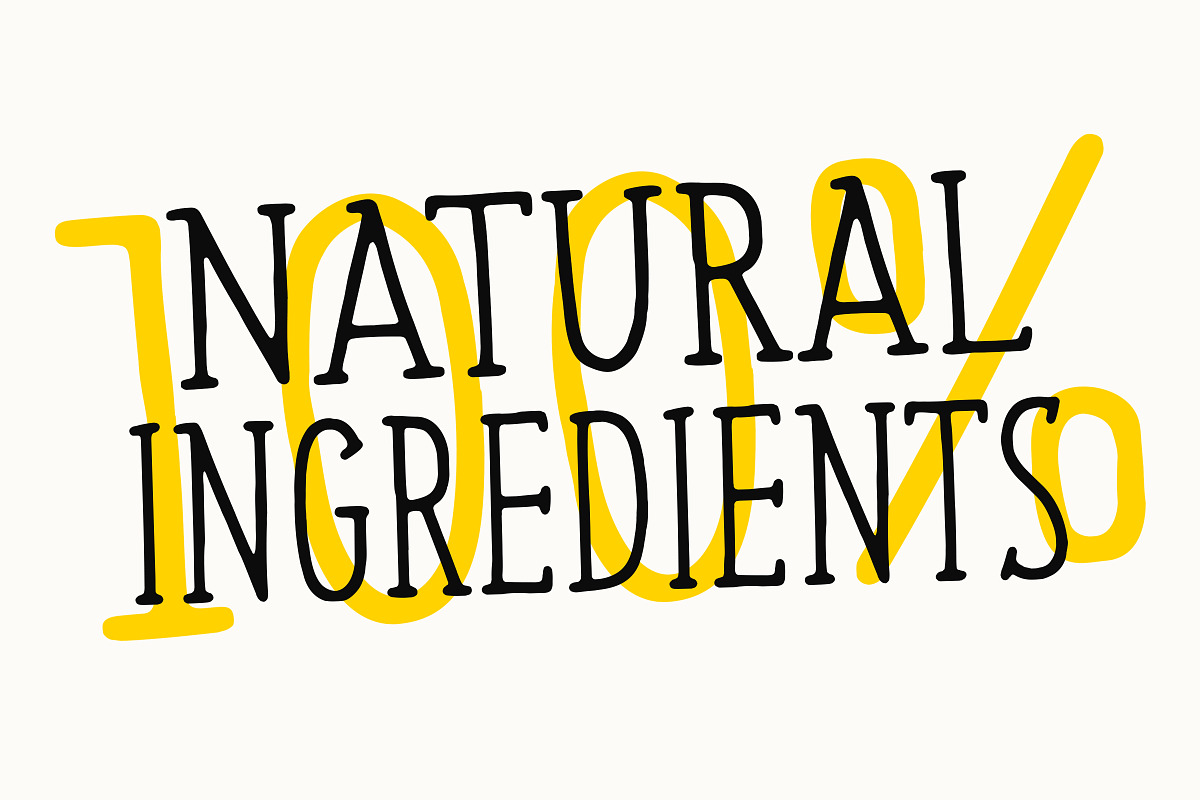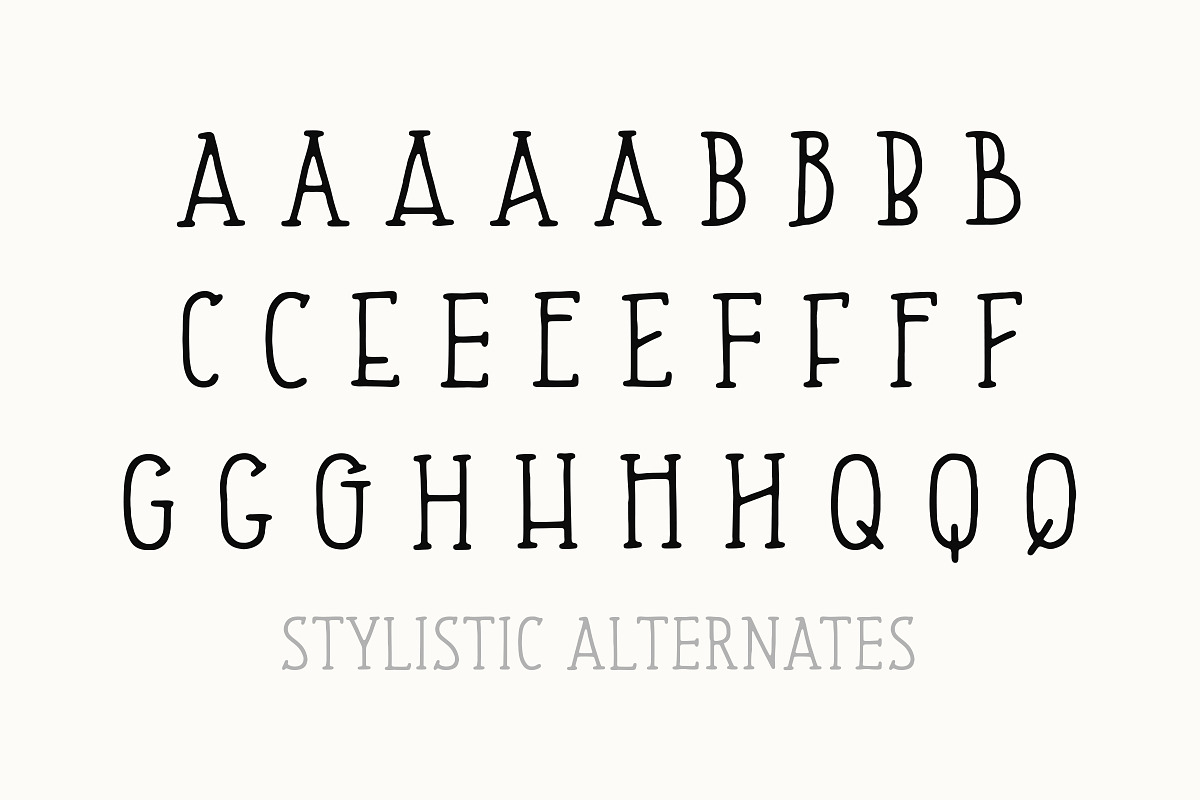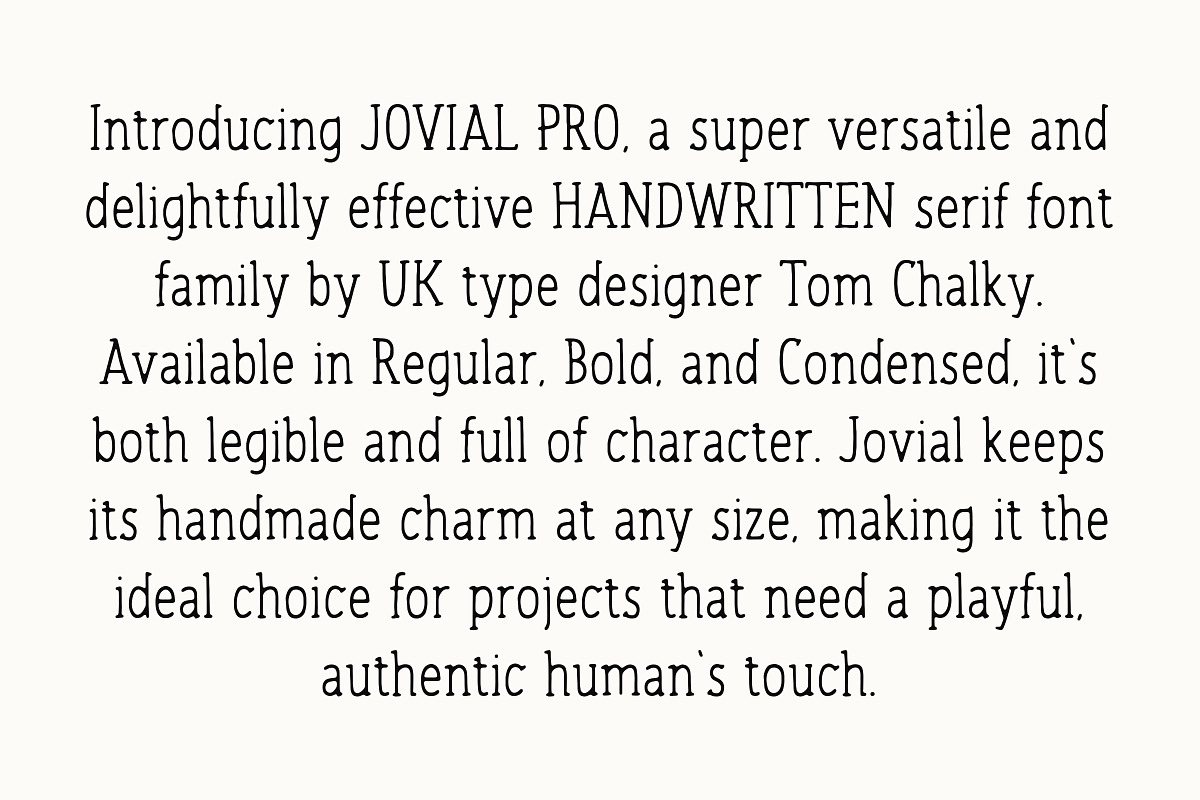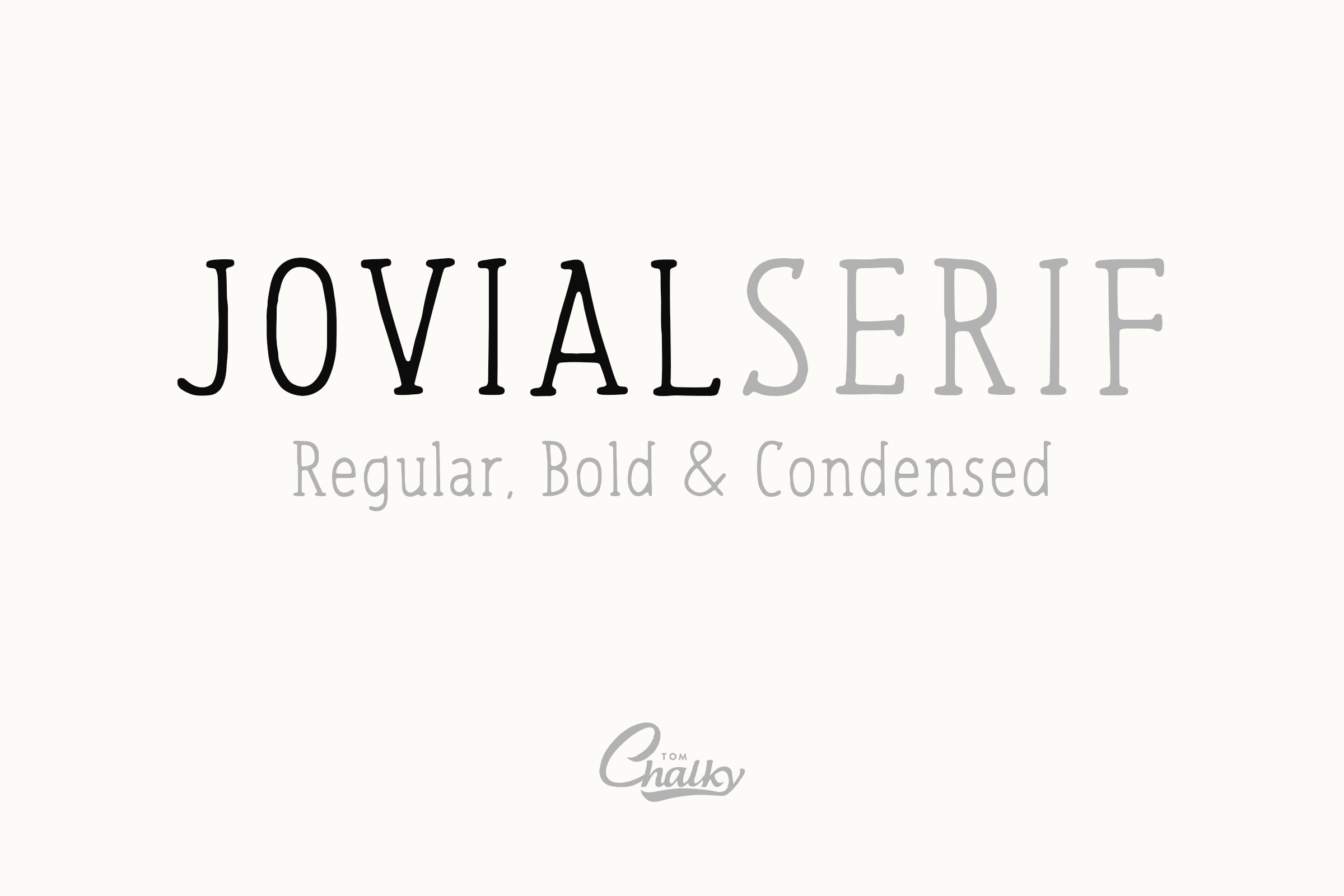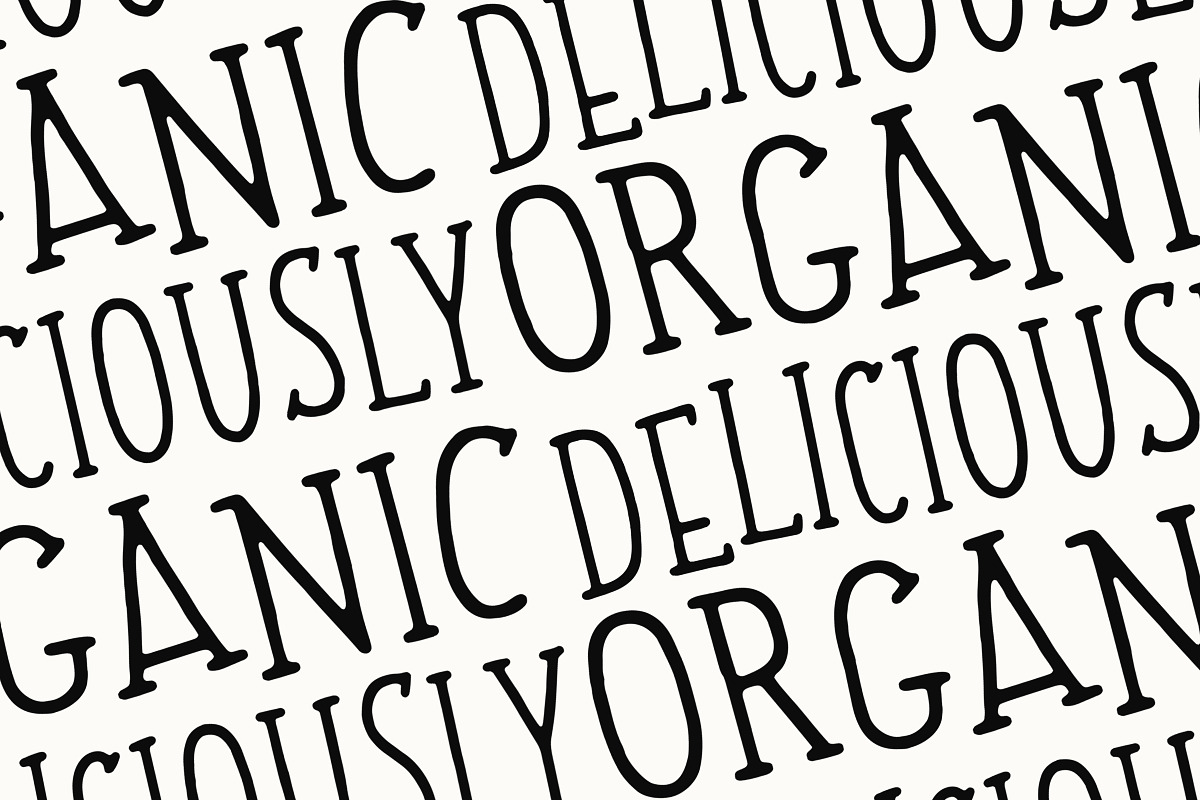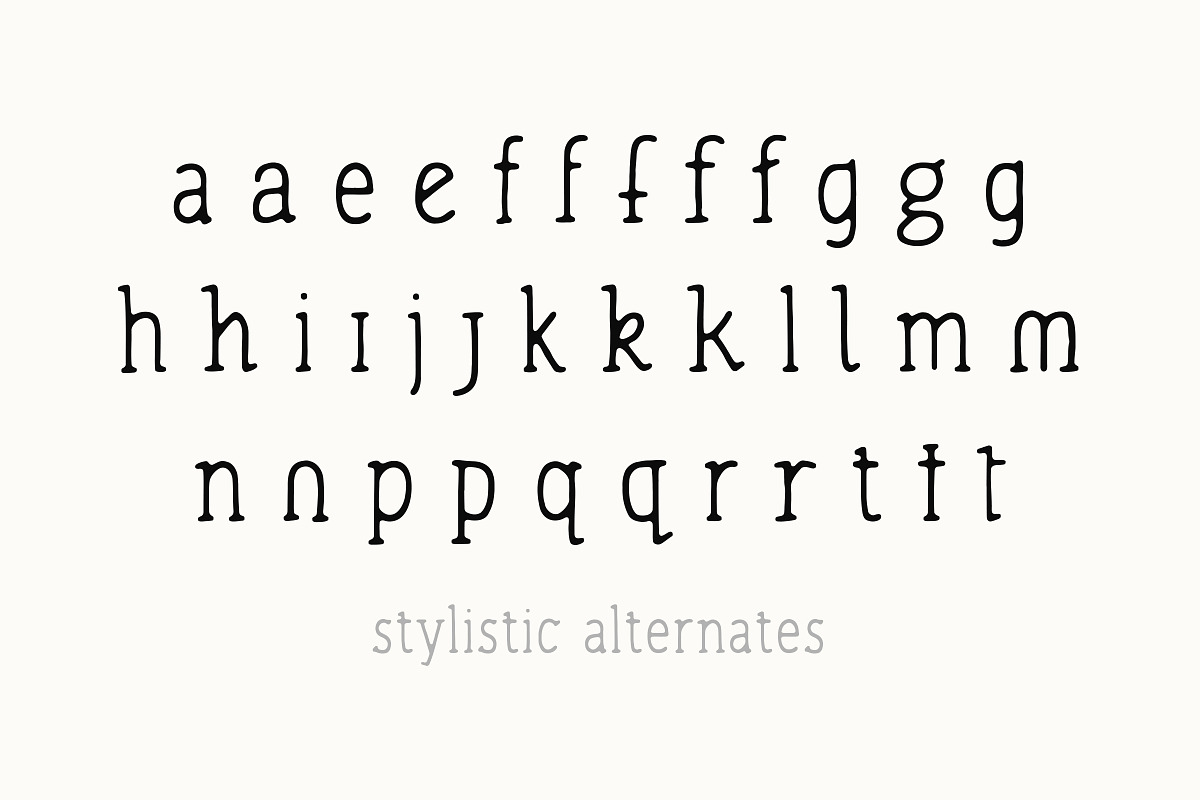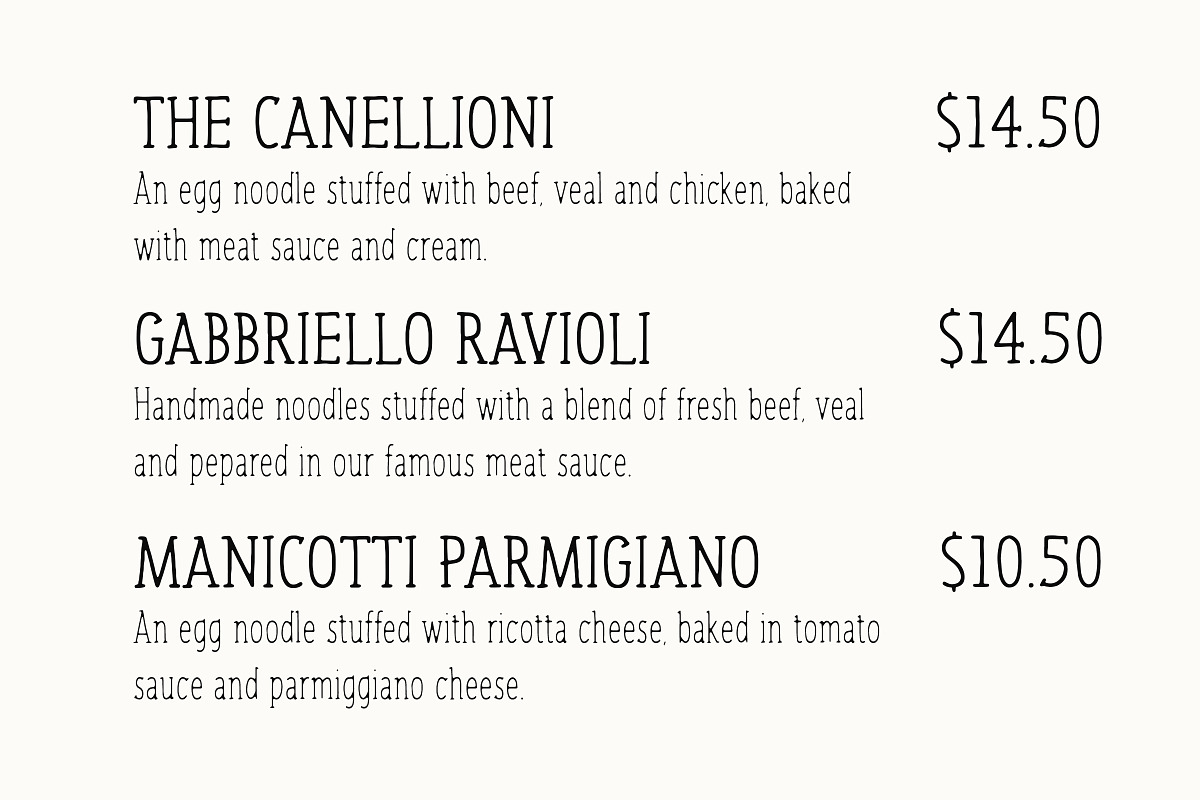
Introducing Jovial Serif – A Playful and Charming Handwritten Serif Typeface
Jovial Serif brings a delightful twist to the classic serif typeface by combining handwritten charm with the structure of traditional serifs. Available in Regular, Bold, and Condensed, this versatile font is designed to add a sense of warmth and personality to your projects.
Its quirky curves and subtle details make it perfect for everything from product packaging and menus to branding and editorial designs. Jovial Serif stands out with its handcrafted feel while maintaining excellent readability, offering a perfect balance between playful and professional—an ideal choice for creative projects that call for a touch of authenticity.